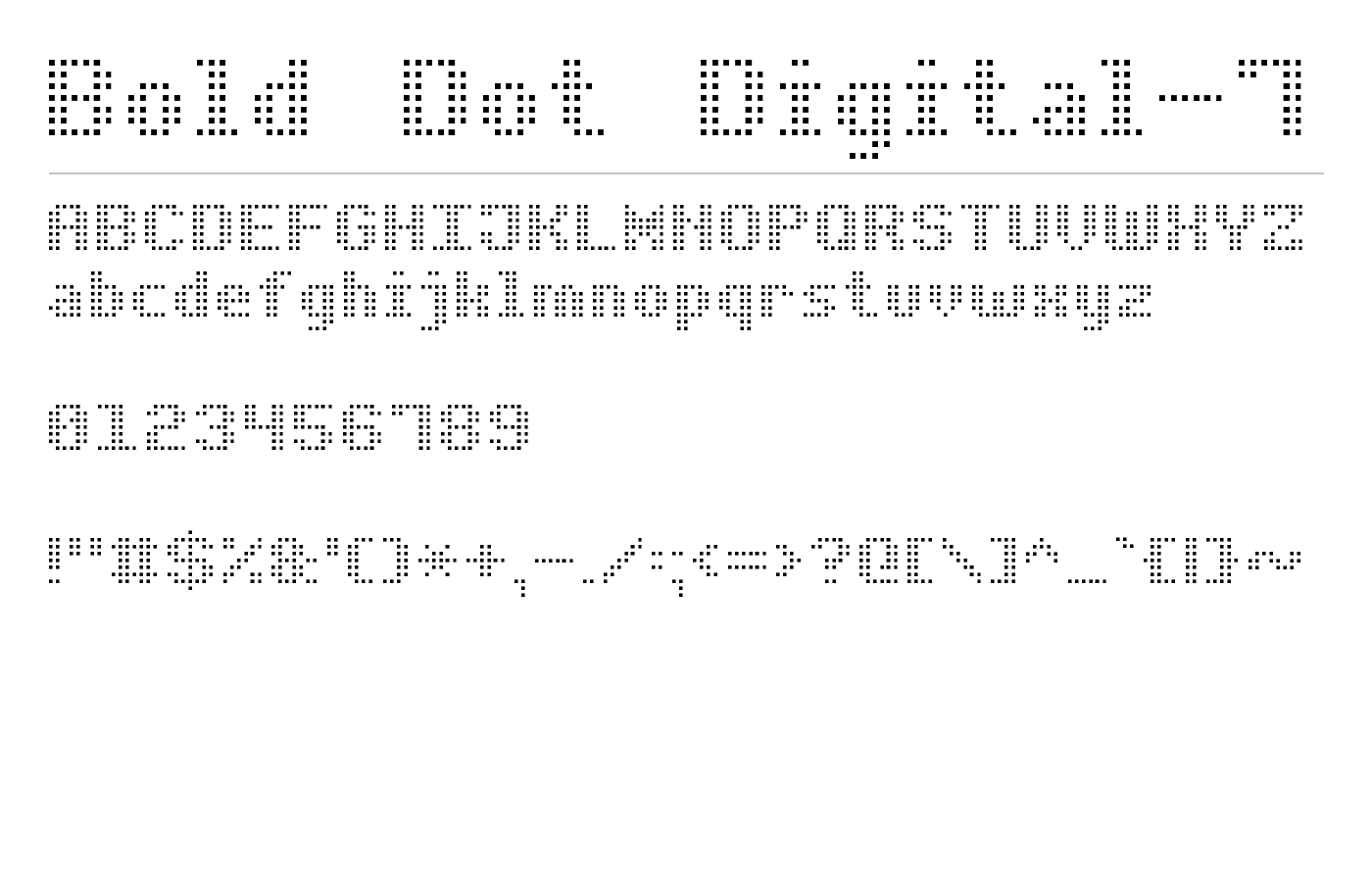
Bold Dot Digital-7 is a unique digital-style sans serif font created from a grid of evenly spaced dots, giving it a pixelated, retro electronic display feel. Its bold weight and monospaced structure make it ideal for tech-inspired designs, digital interfaces, and vintage arcade or sci-fi themes. This font stands out best in headlines, logos, or any setting where a futuristic, digital aesthetic is desired.
Bold Dot Digital-7 Font
About Bold Dot Digital-7 Font
| Font family | Bold Dot Digital-7 Font |
| Designer | Sizenko Alexander |